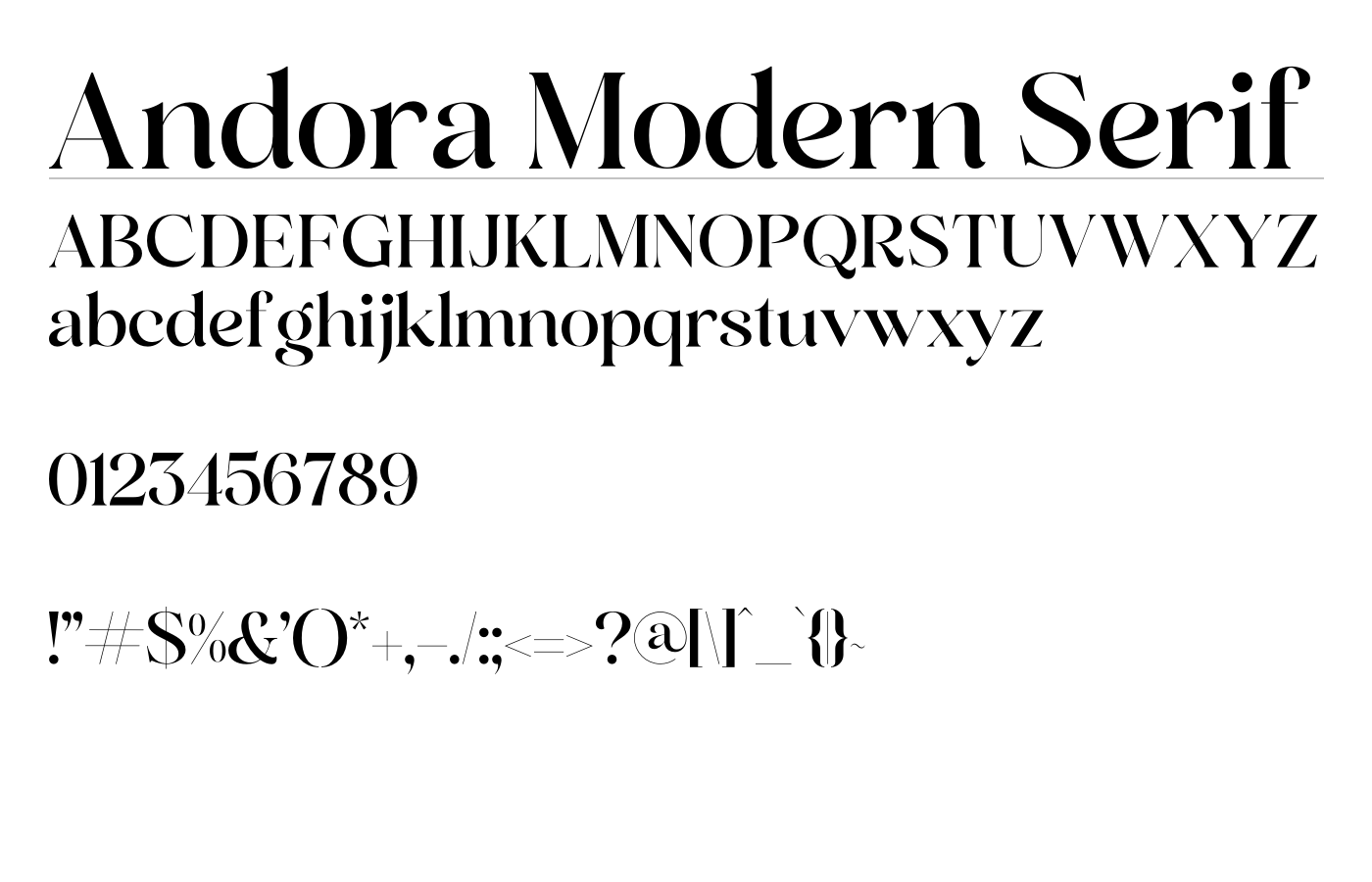
Andora Modern Serif is a refined modern serif font featuring high contrast between thick and thin strokes, slender bracketed serifs, and elegant letterforms with unique details like the curved tail on the Q and single-story g. Its tall x-height and regular width give it a sophisticated yet readable appearance, perfect for luxury branding, editorial headlines, and stylish packaging. This font conveys elegance and modernity, making it ideal for projects seeking a polished and upscale feel.
Andora Modern Serif Font
About Andora Modern Serif Font
| Font family | Andora Modern Serif Font |